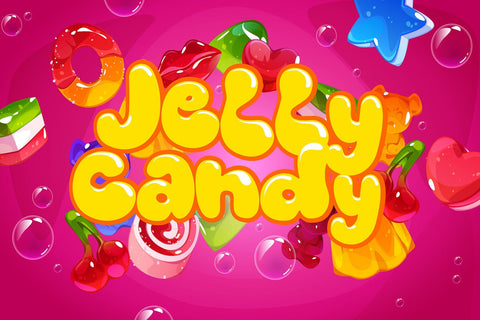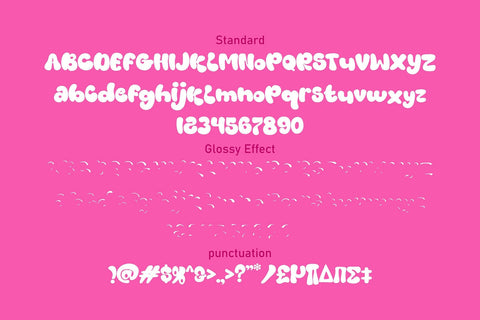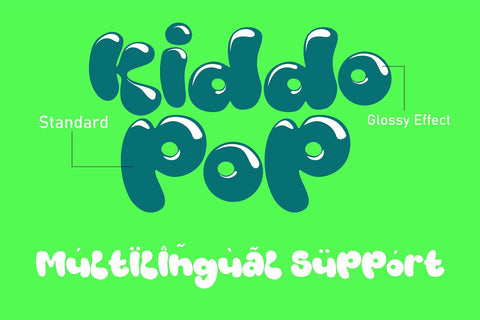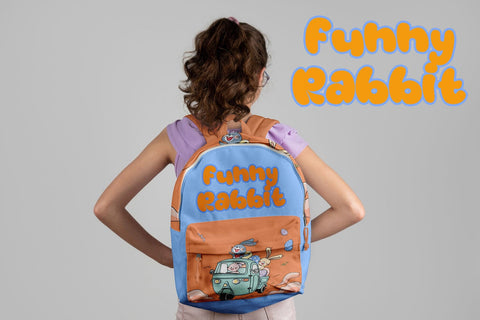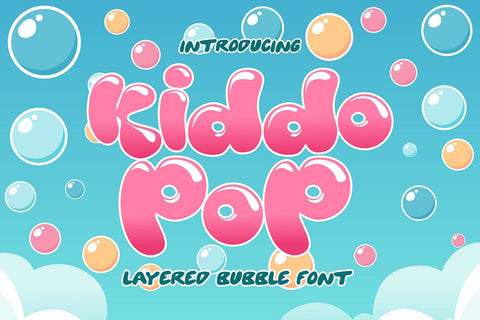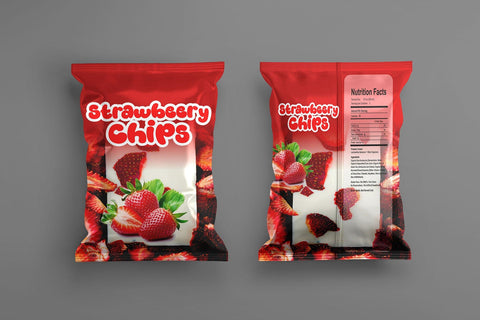
Kiddo Pop – Layered Bubble Kids Font
Kiddo Pop is a layered bubble full of joy and color. With rounded inflated shapes and a glossy layered effect, it’s perfect for children’s books, toy packaging, candy branding, party invitations, YouTube thumbnails, and playful social media graphics. It includes uppercase, lowercase, numerals, punctuation, alternates, and multilingual support, giving you everything you need for fun, bright, and creative projects.